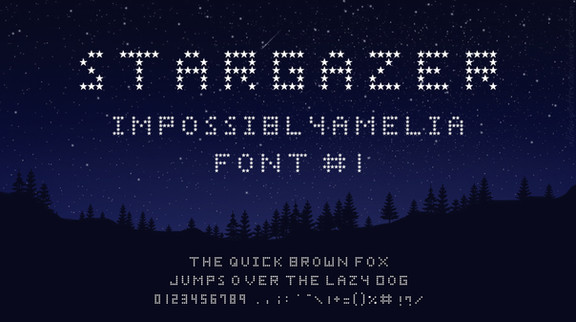
This is, like the title says, random. Very random
Ehm. Well, yea. It doesn't even have numbers in it. What you see in the preview image is what you get
This reminds me of the font in the old hamtaro gameboy games. Makes me feel nostalgic. Very nice font. :>
oh, these are great! I was looking for some good pixel fonts. nice job~